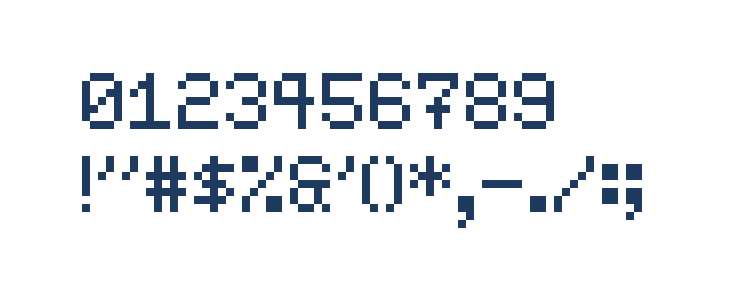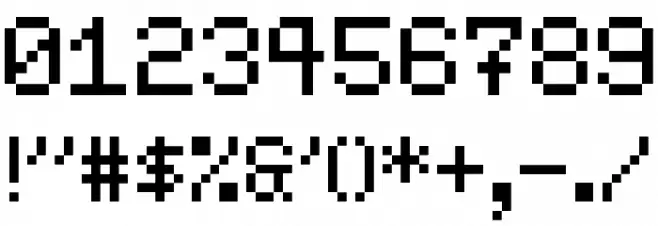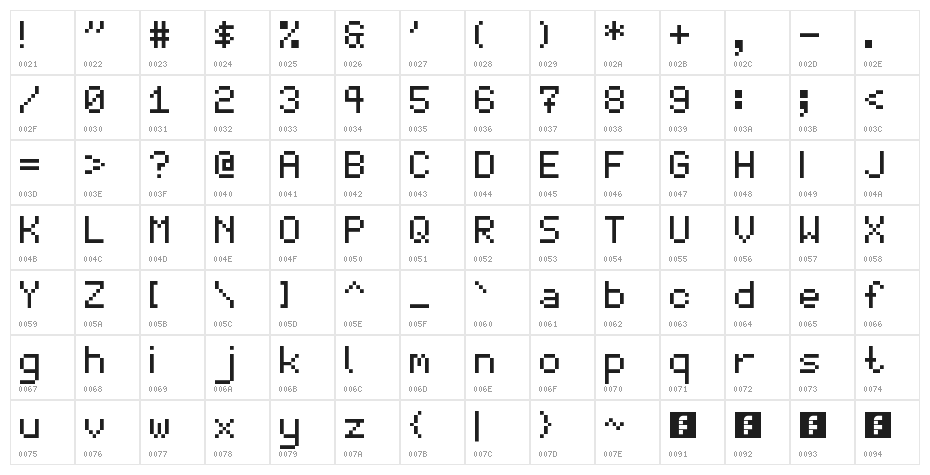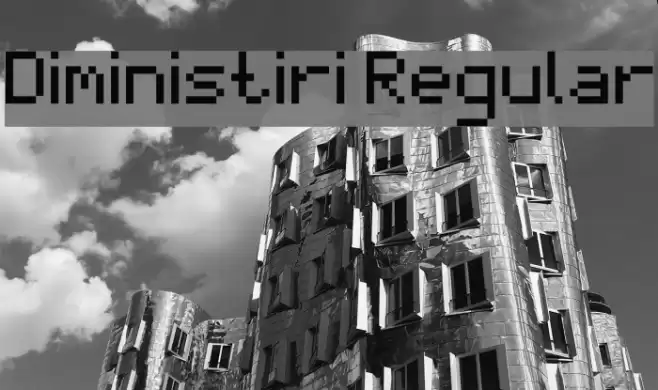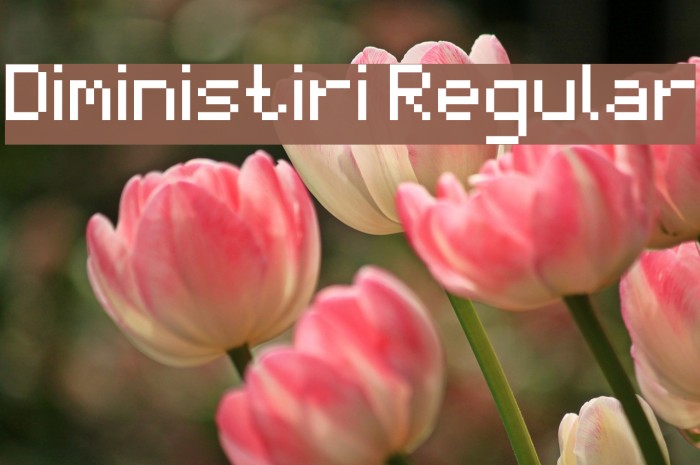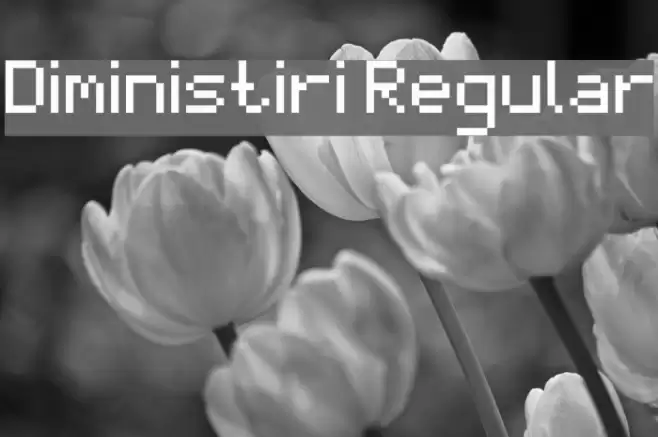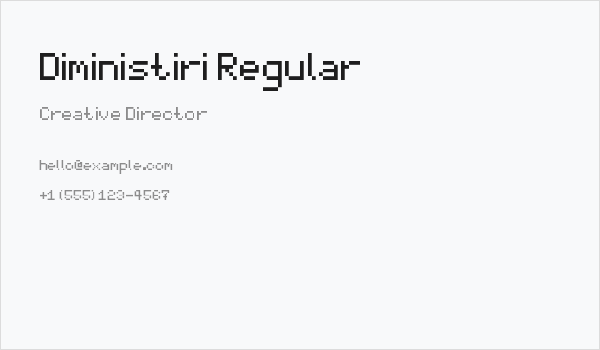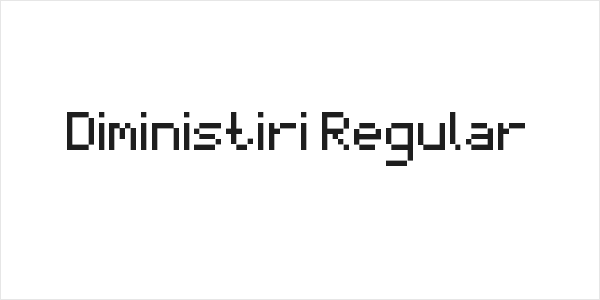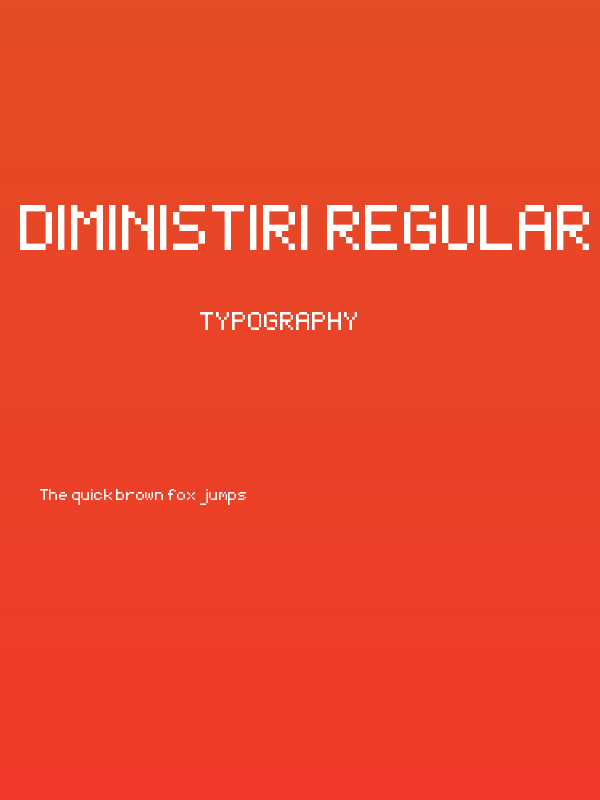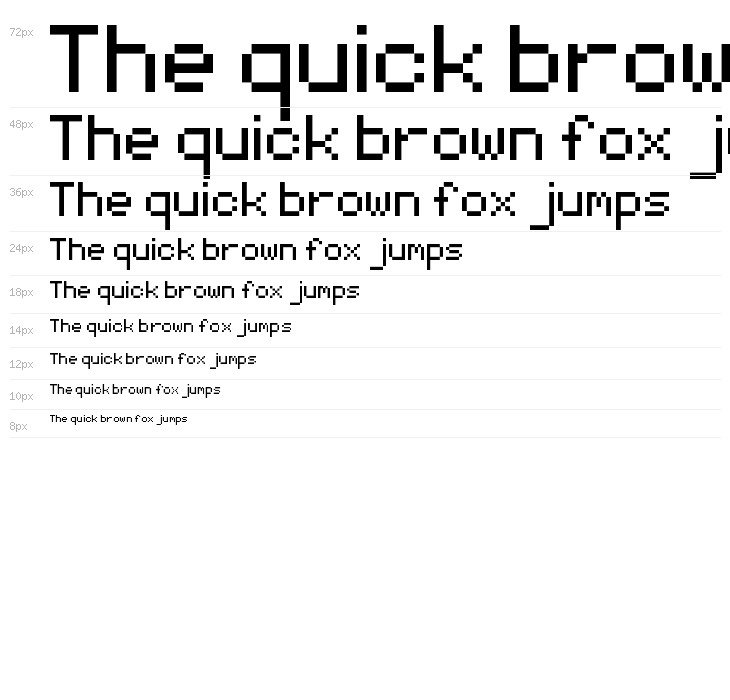
Diministiri Regular Font
Diministiri Regular Description
This font features a pixelated, blocky design reminiscent of early digital displays and video games. Each character is constructed with a uniform grid-like structure, giving it a distinctly retro and technological feel. The uppercase and lowercase letters maintain a consistent height and width, contributing to a monospaced appearance. The numerals and special characters follow the same design principles, ensuring a cohesive look across all glyphs. The font's simplicity and clarity make it highly legible, even at smaller sizes, while its unique style adds a nostalgic charm.
| Use Case | Headlines, Logos, Digital displays |
| Proposed Projects | Ideal for retro-themed designs, video game graphics, digital art projects, and any creative work that requires a nostalgic or technological aesthetic. |